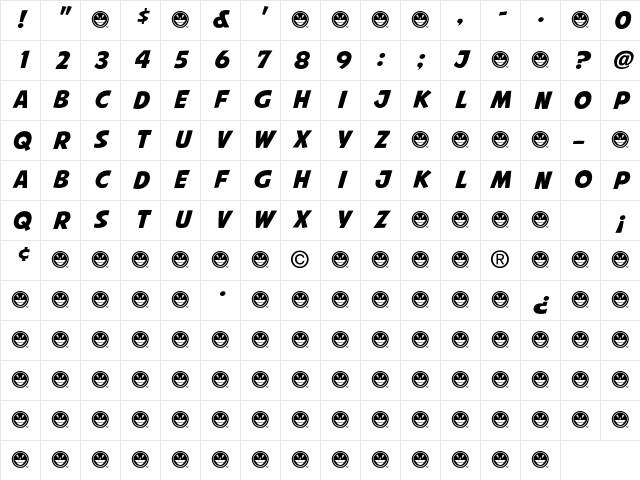
Avengeance Mightiest Avenger Regular
Design Context for Avengeance Mightiest Avenger
Avengeance Mightiest Avenger is a composed and adaptable typeface that performs quietly and consistently across a wide range of design contexts.
Pro Tip: Use Avengeance Mightiest Avenger in both headline and body roles to test its range before committing to a single application.